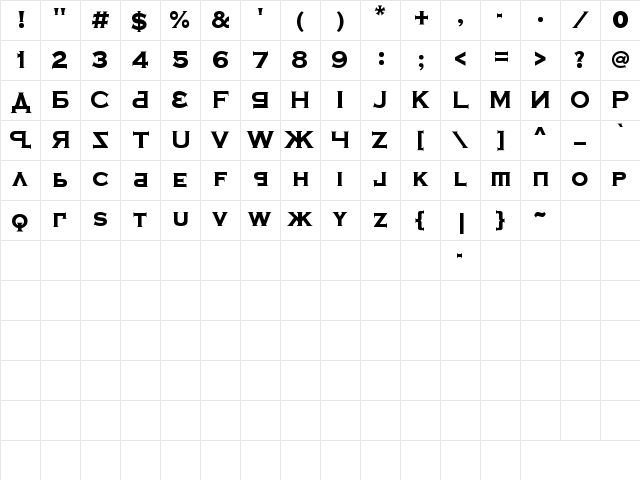
Complete Kremlin Samovar Extra Bold glyph index. Displaying only characters natively supported by Kremlin Samovar Extra Bold font.
Kremlin Samovar is a composed and adaptable typeface that performs quietly and consistently across a wide range of design contexts. Its bold stroke weight gives it real presence on the page.